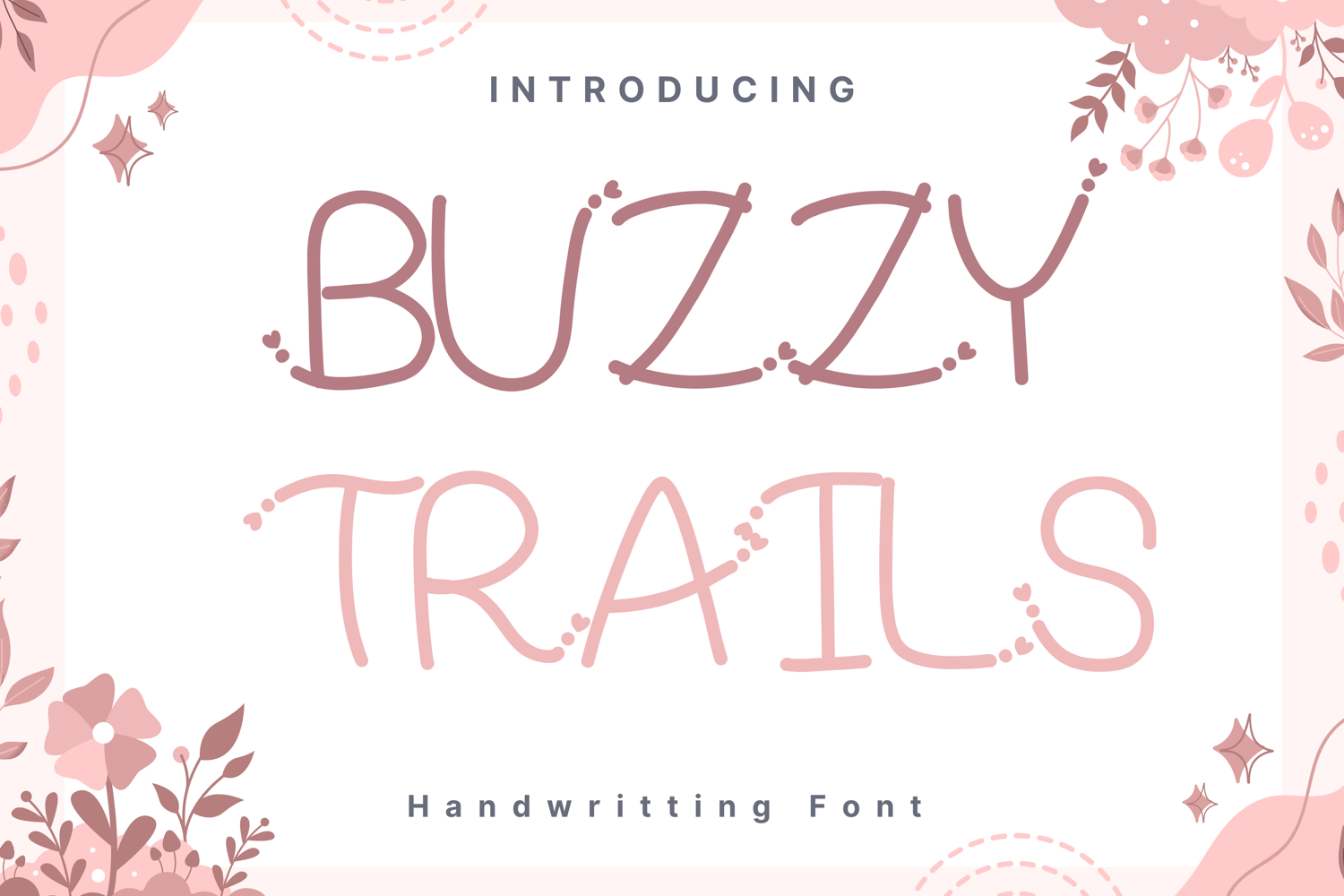
Buzzy Trails Style
Buzzy-Trails
Buzzy Trails is a playful handwritten font with whimsical dotted trails weaving through each letter, evoking the path of a buzzing bee. Its rounded, friendly strokes make it perfect for children’s projects, nature-themed designs, spring and summer invitations, gardening labels, and cheerful branding. The font combines a casual handwritten style with charming decorative details to create a fun and approachable look.
Buzzy Trails Style